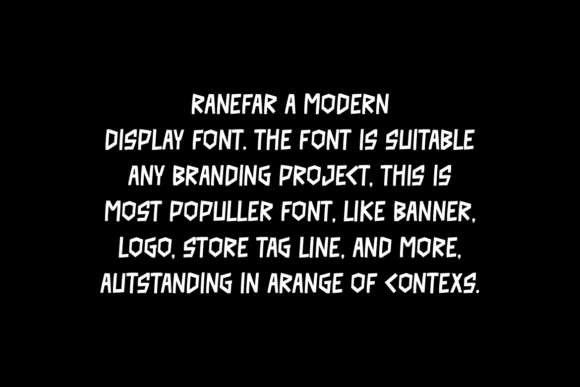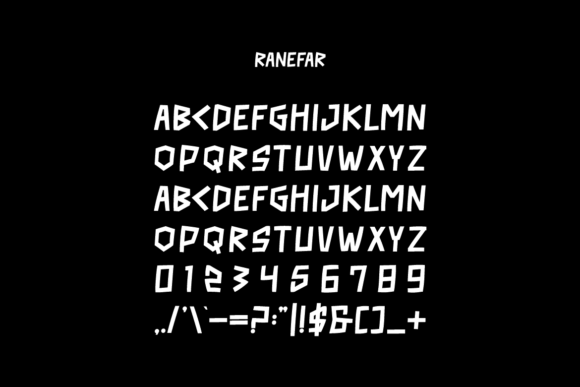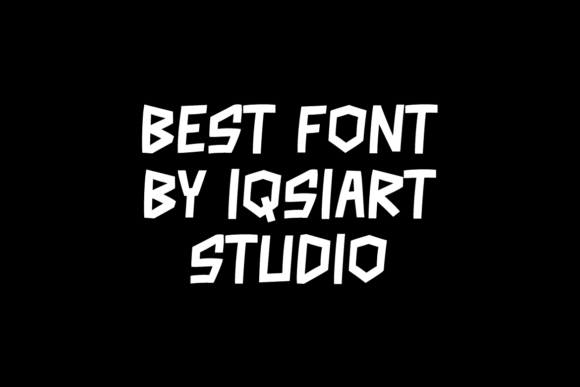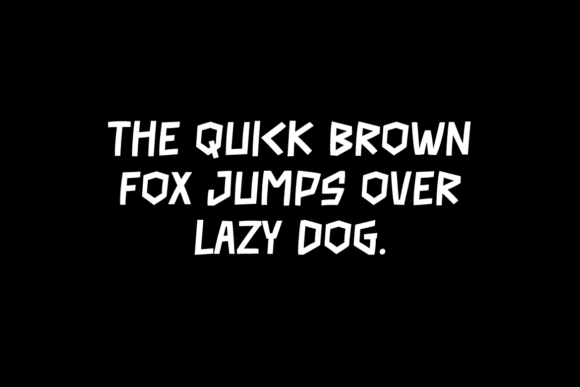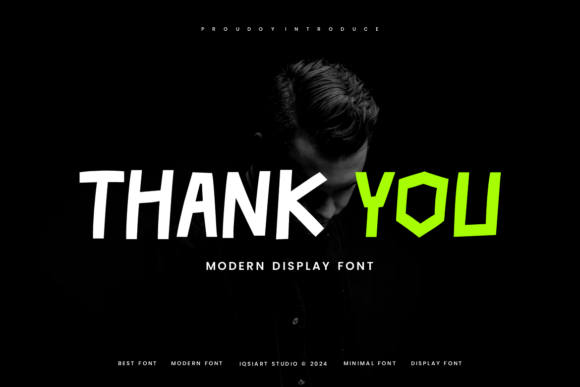
Introduction to Ranefar Font
As designers, we’ve all been there – staring at a blank canvas, trying to bring our creative vision to life. And then, it happens: a spark of inspiration strikes, and we know exactly what we need to make our project truly stand out. For many of us, the perfect font can be that game-changing element. Enter Ranefar Font, a sleek and modern display font that’s sure to make a lasting impression.
With its clean lines, bold style, and sophisticated look, Ranefar Font is the ultimate design resource for any creative project. Whether you’re working on a high-profile logo, a marketing campaign, or simply want to add some visual flair to your social media graphics, this font is sure to deliver. And the best part? It’s available for free download, making it a valuable addition to any designer’s toolkit.
Key Features of Ranefar Font
- High-quality, hand-drawn design perfect for creative projects and design resources.
- Unique, transparent background design allows for flexibility and versatility in your design project.
- Compatible with a wide range of resolutions, including high-resolution designs for print materials.
- Perfect for use in logos, branding materials, and other design elements where a high-quality, hand-drawn look is desired.
- Can be easily scaled and resized to fit various design requirements, from small icons to large-scale graphics.
Honest Review: Ranefar Font
As a designer, I’m always on the lookout for high-quality design resources to elevate my creative projects. Recently, I stumbled upon the Ranefar Font and I must say, it’s been a game-changer.
- ✨ Unique and modern design style that’s perfect for creative projects
- ✨ High-quality font files that are suitable for print and digital use
- ✨ Transparent background option that makes it easy to use in design projects
- ⚠️ Limited font weights and styles available (although they do offer a free download with a limited selection)
Ranefar Font is ideal for various design projects, including logos, infographics, and marketing materials. Its transparent background feature makes it perfect for overlaying text on images.
To maximize the potential of the Ranefar Font, experiment with different font sizes, colors, and styles to create visually appealing designs. Additionally, pair the font with a high-quality image or background to elevate your creative project.